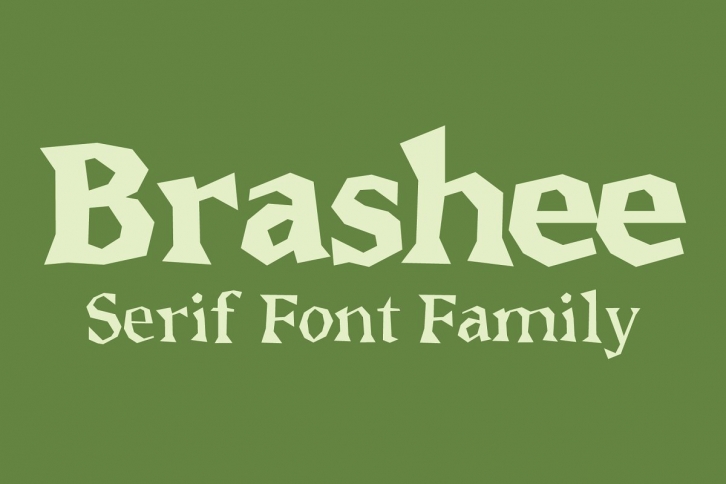
Brashee is a serif font family made up of characters that are drawn with only straight lines. It includes upper and lowercase alphabets, numbers, punctuation, accented characters, symbols, and miscellaneous characters.